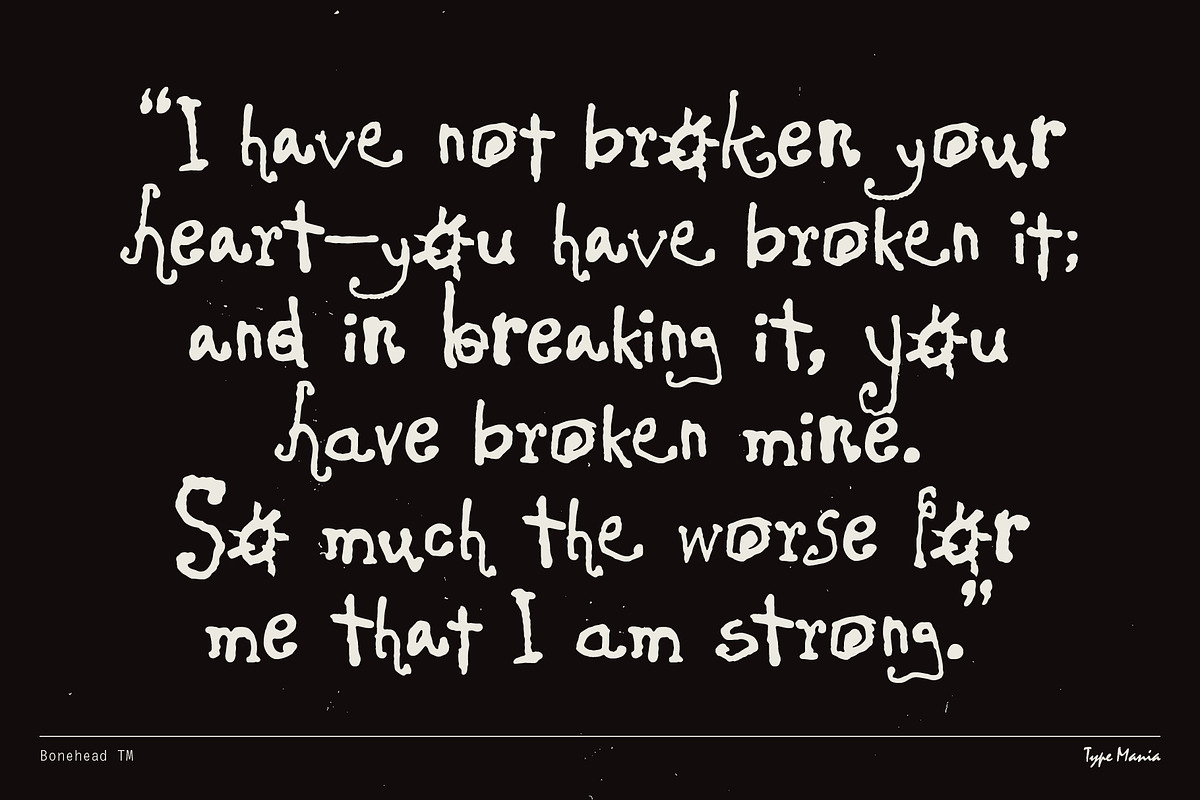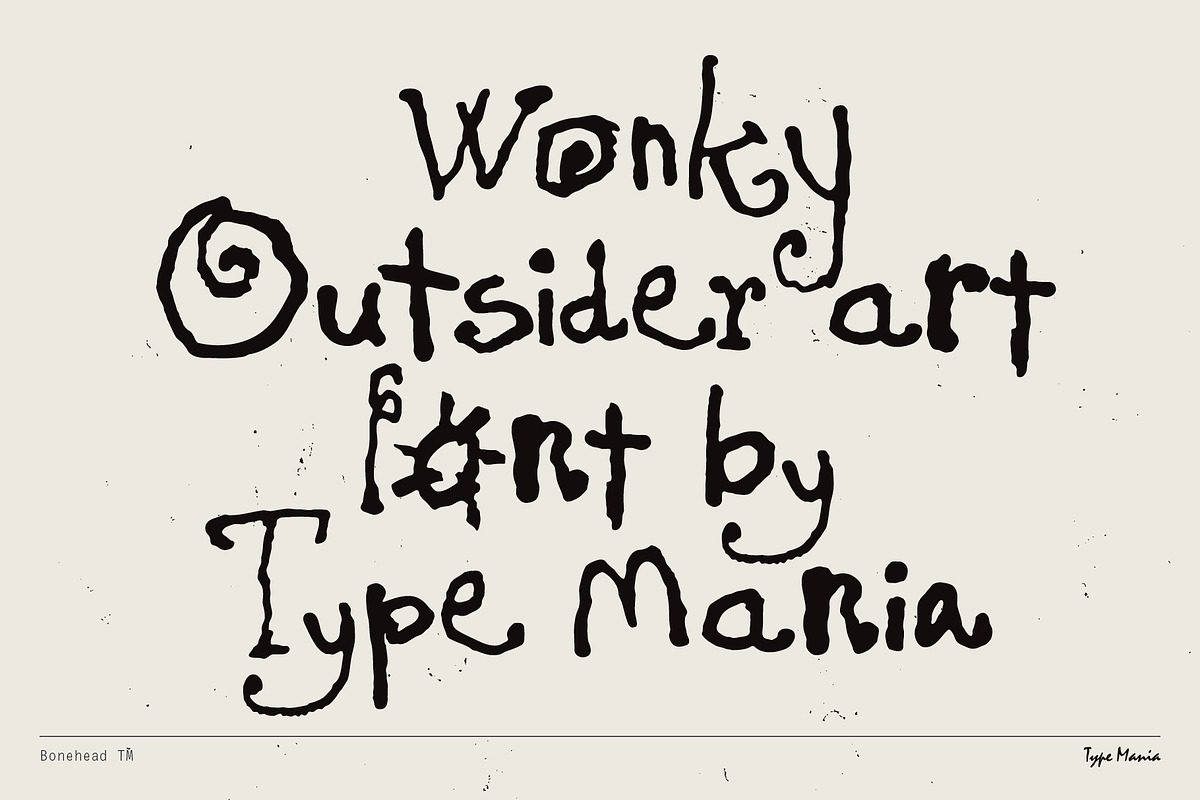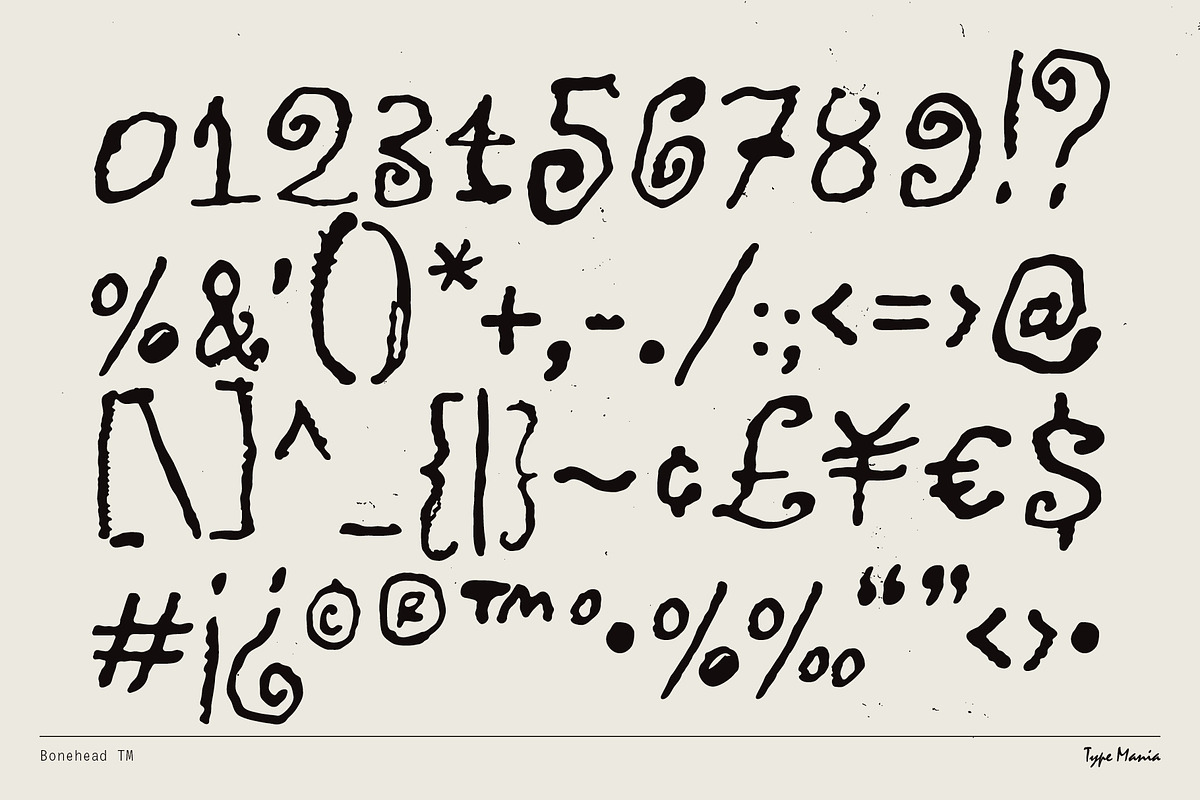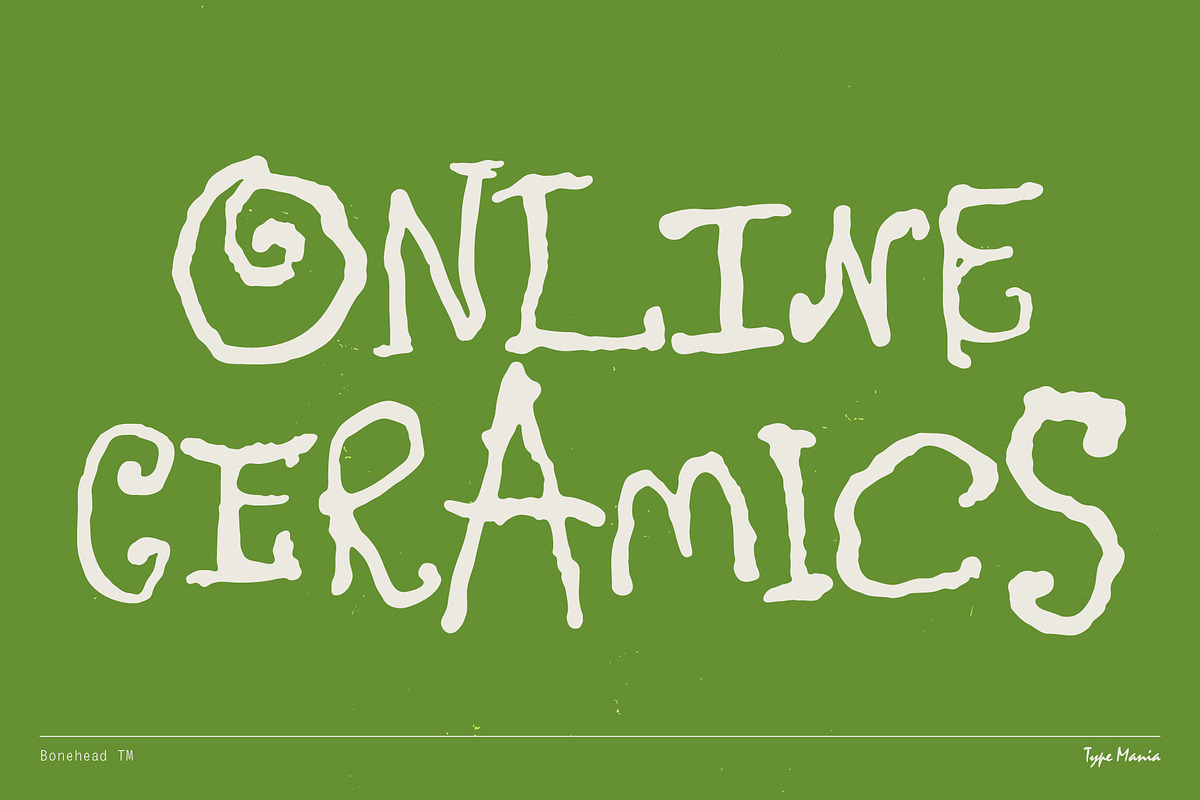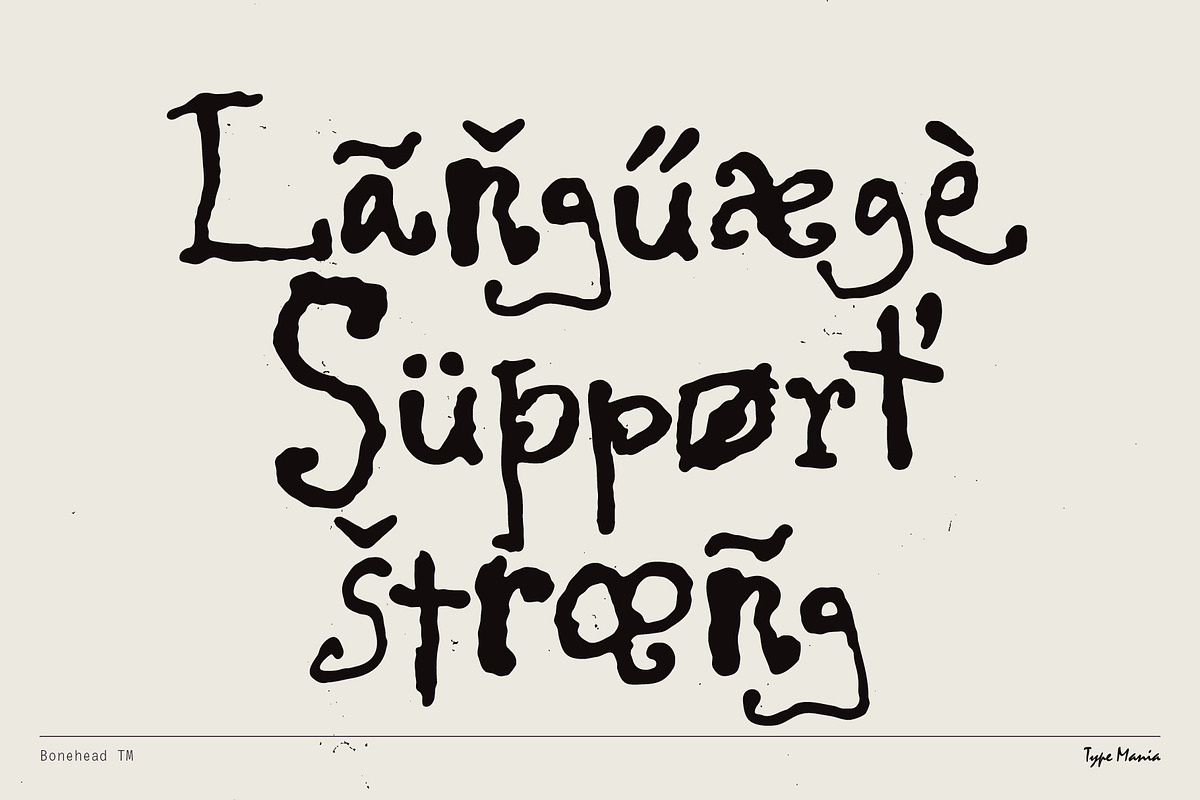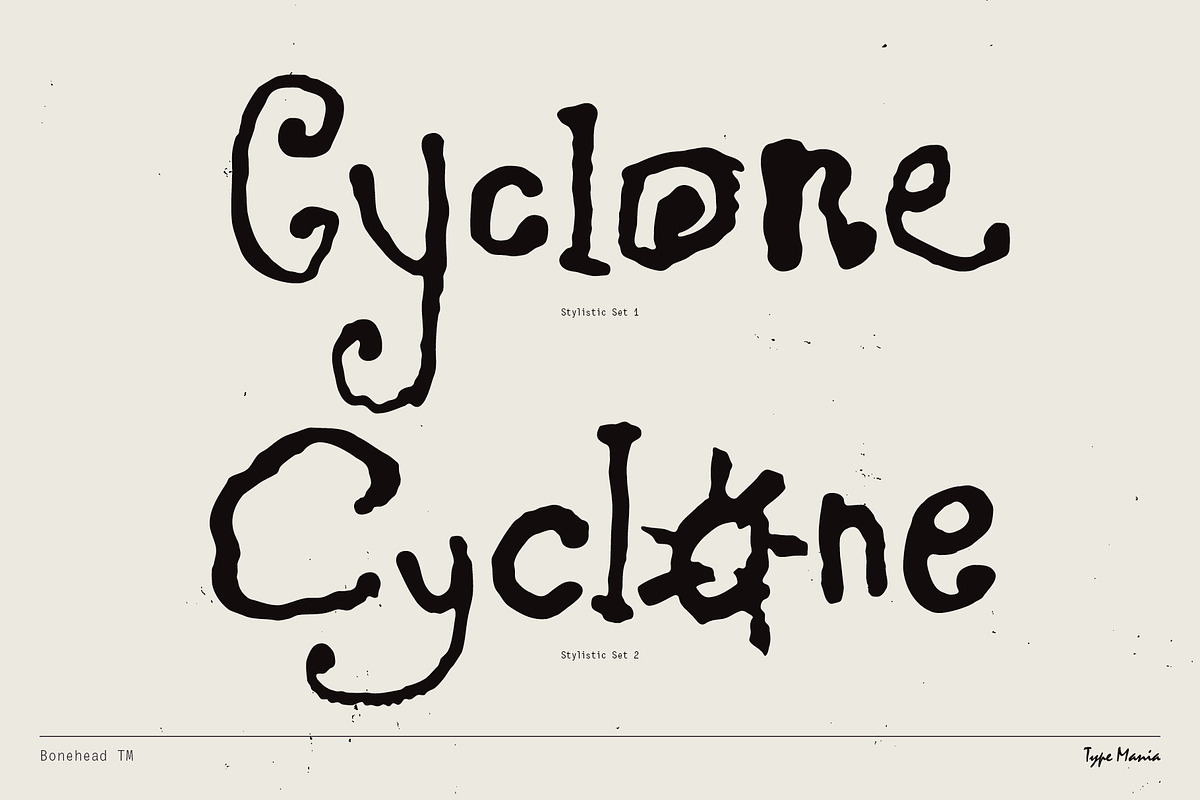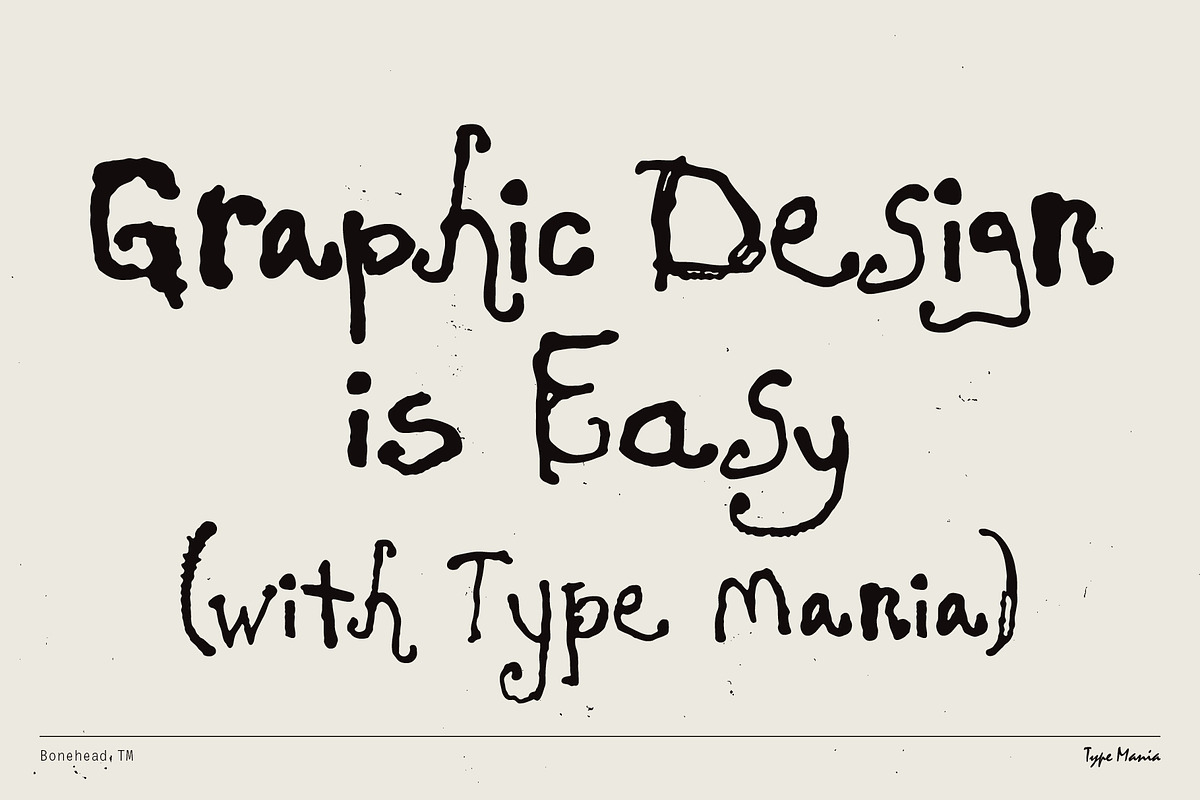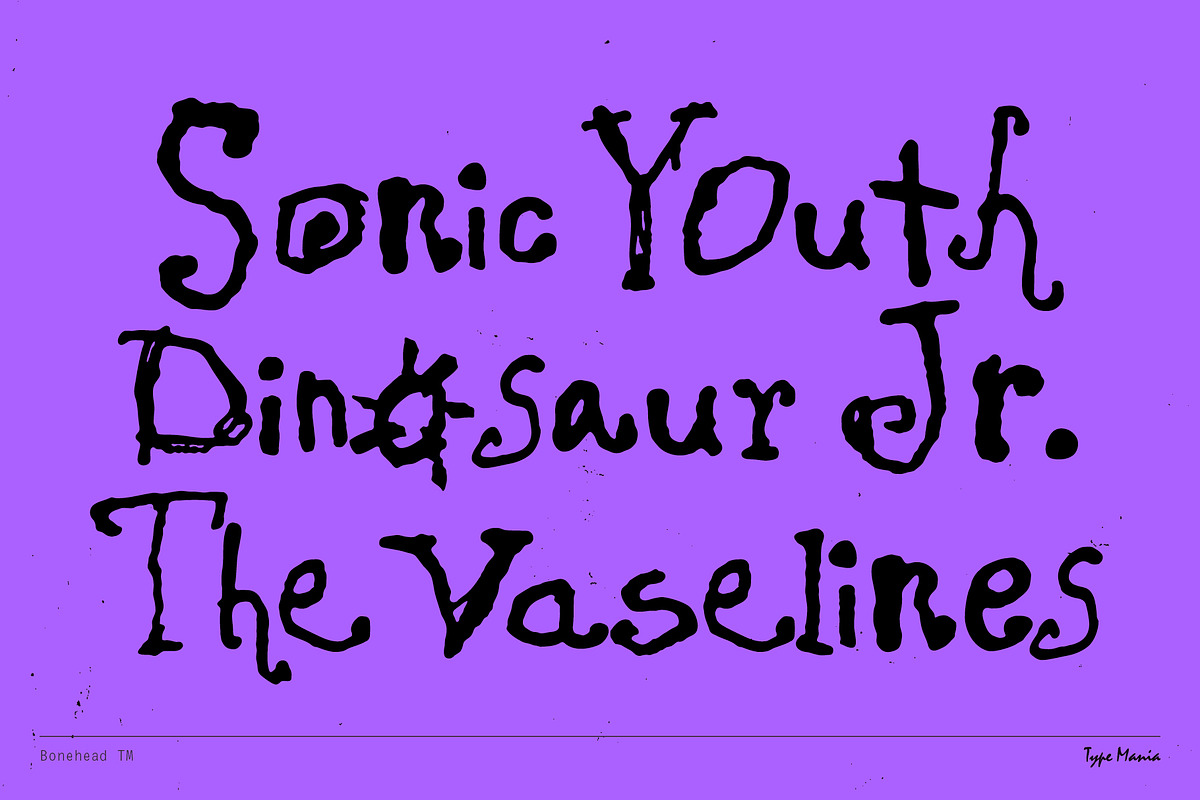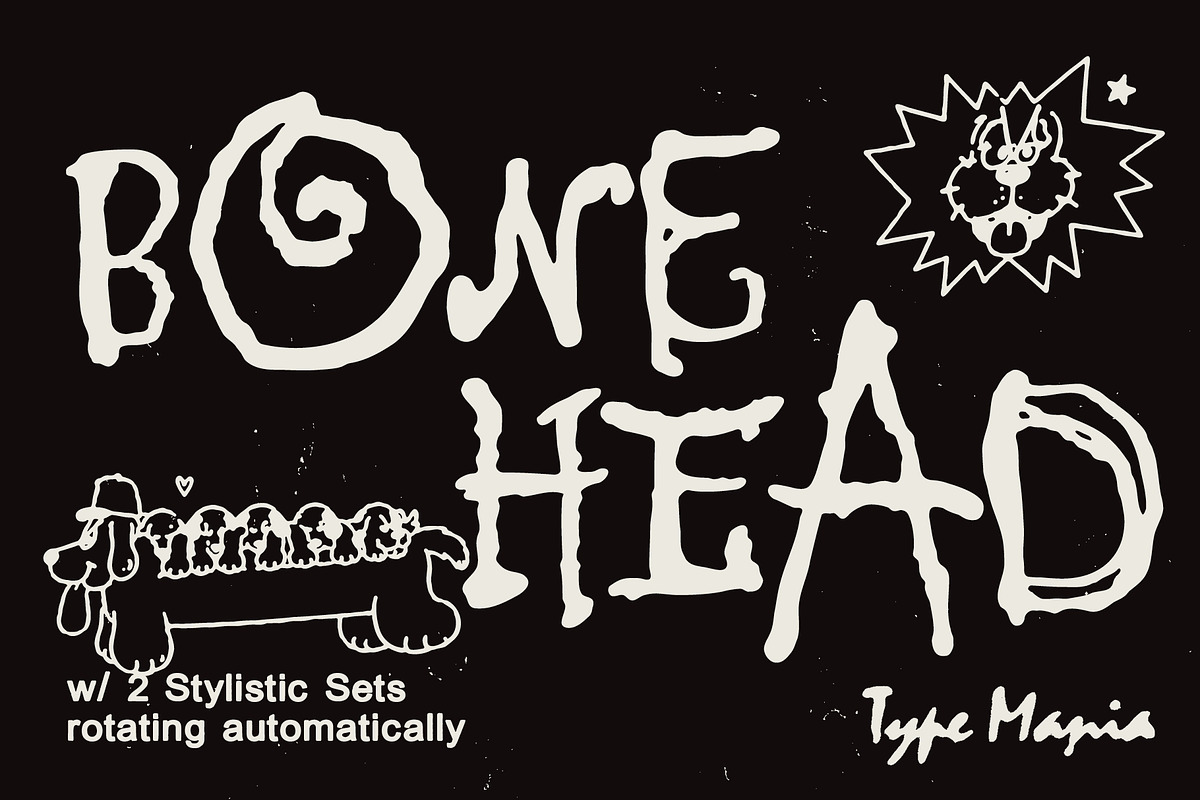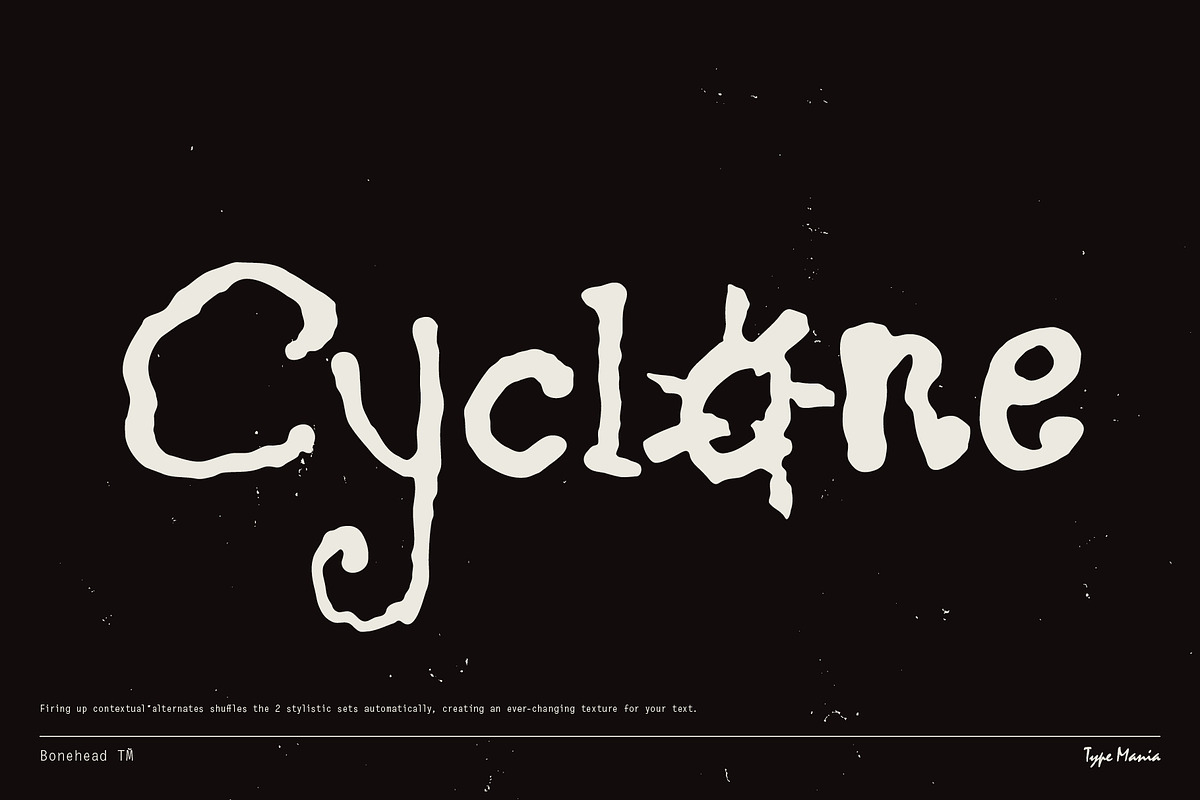
Bonehead TM – Raw Scribble
Bonehead TM is an outsider art font that favours character over polish. Contextual Alternates do the work for you, alternating between two stylistic sets as you type 😮💨
OpenType features
2 stylistic sets
The font is programmed to automatically shift between the stylistic sets
Languages
Basic Latin
Western European
Euro
Central European
Pan African Latin